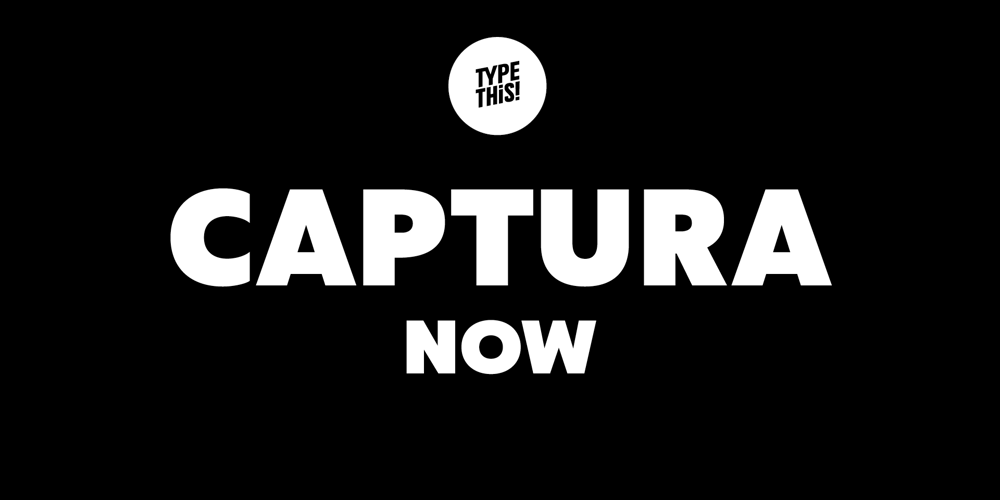
Captura Now
Captura Now font
Captura Now Font Family was designed by Anita Jürgeleit and published by TypeThis!Studio. Captura Now contains 18 styles and family package options. Carefully refined shapes and sensitively balanced spacing and kerning create the gentle rythm that grants Captura Now its warm-hearted face, perfect in form and shape. Expanded with an enormous character set, Captura Now offers the freedom to transform your design into the Cyrillic-language world, as well as into any Latin based language — including Vietnamese.*Variable fonts work well in software that supports variable font technology.